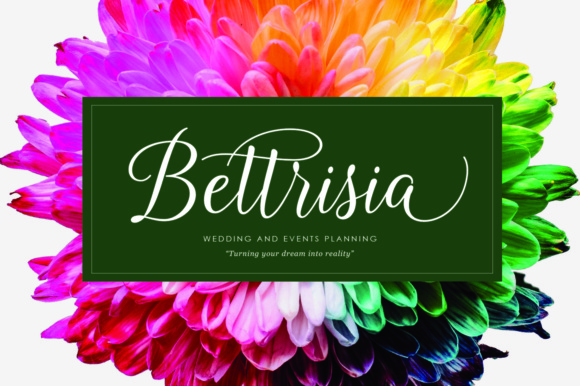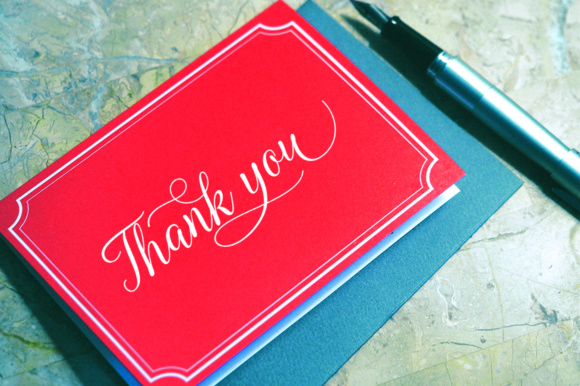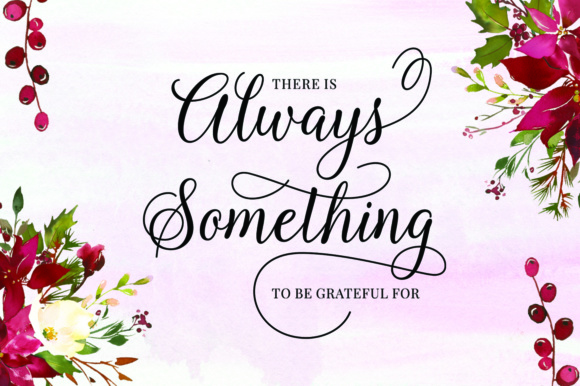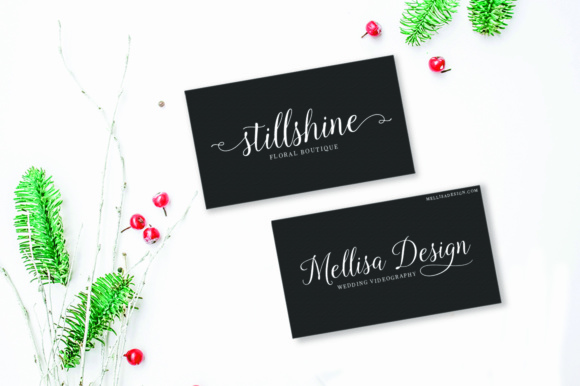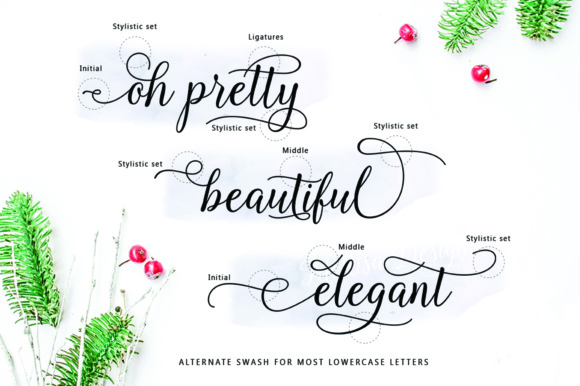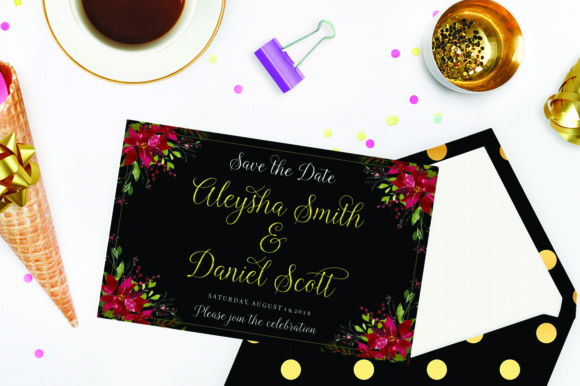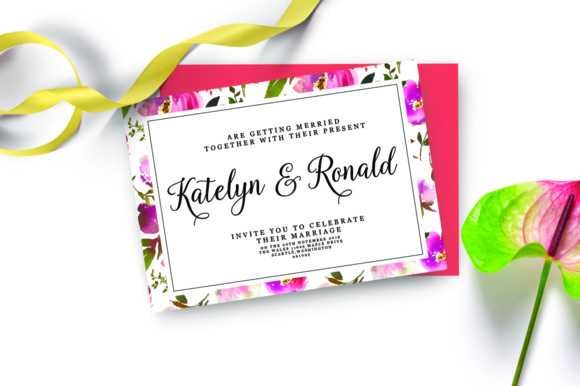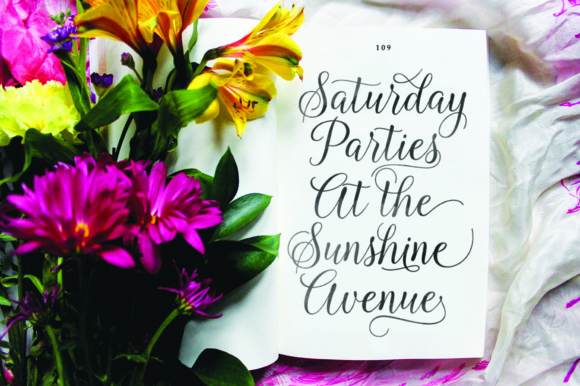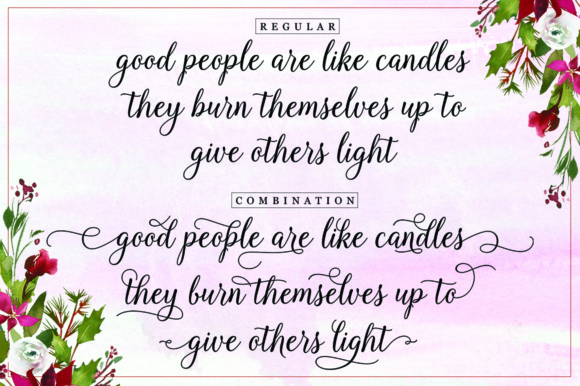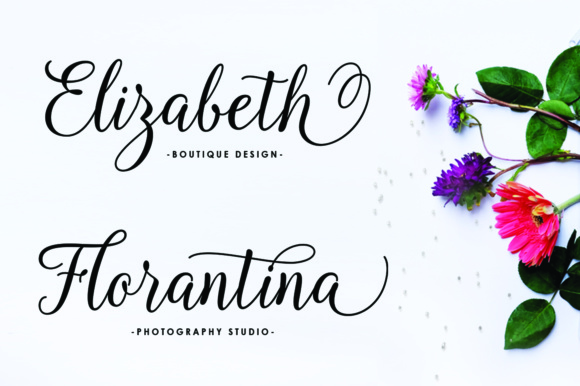
Kasandra Script Font
About Kasandra Script Font
Kasandra Script is a modern calligraphy font that features a varying baseline, smooth lines and will give your design a classic and elegant touch. Kasandra can be used for various purposes such as headings, signatures, logos, wedding invitations, t-shirts and much more!